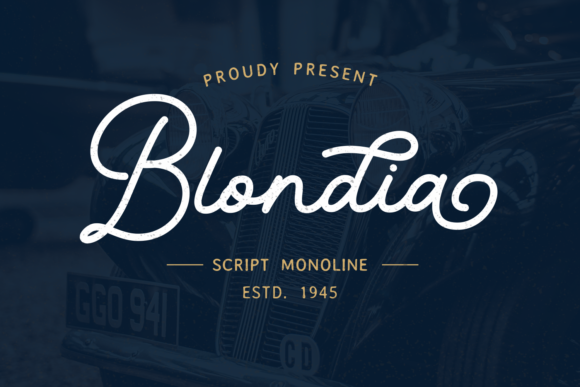
The Blondia Font: A Timeless Monoline Script for Creative Designs
Have you ever been in the middle of a design project, and suddenly, you’re stuck on finding the perfect font? I recall a recent experience where a client asked for a vintage-inspired logo with a personalized touch. After scouring through numerous font libraries, I stumbled upon the enchanting Blondia Font. This beautiful monoline script font has been a game-changer for my designs, and I’m excited to share its features, uses, and tips with you!
An Honest Review of Blondia Font
What I Love About Blondia ✨
• 💫 Elegant and sophisticated design, perfect for vintage logos and branding
• ✅ Highly versatile, suitable for social media posts, quotes, and more
• 🔥 Supports OpenType features, glyphs, and stylistic alternates for added customization
• 👍 Easy to read and works well in various font sizes
• ⚠️ Limited availability of condensed or expanded styles, which might limit its use in certain designs
• 🤔 Some users might find the font a bit too delicate for bold or edgy designs
The Backstory Behind Blondia Font
The Blondia font was designed with the intention of capturing the essence of timeless elegance and sophistication. Inspired by classic typography and refined scripts, Blondia’s creator aimed to produce a font that would be both versatile and beautiful. Although the actual designer behind Blondia remains a mystery, their work has undoubtedly made a significant impact on the design community.
Q: What type of designs is Blondia Font best suited for?
A: Blondia Font is perfect for vintage logos, branding, social media posts, quotes, and any design that requires a personalized, elegant look.
Q: Does Blondia support OpenType features and glyphs?
A: Yes, Blondia supports OpenType features, glyphs, and stylistic alternates, allowing for added customization and flexibility in your designs.
Q: Is Blondia available in different font weights or styles?
A: Blondia is primarily available as a single font weight, but its elegant design and versatility make it suitable for various design applications. Keep in mind that some users might find the font a bit delicate for bold or edgy designs.